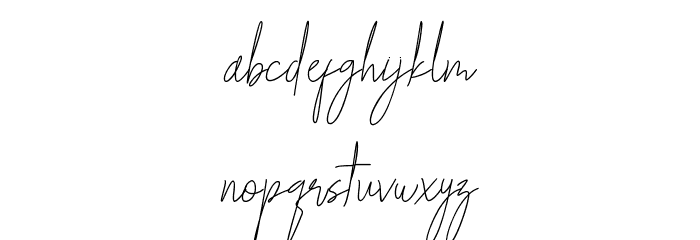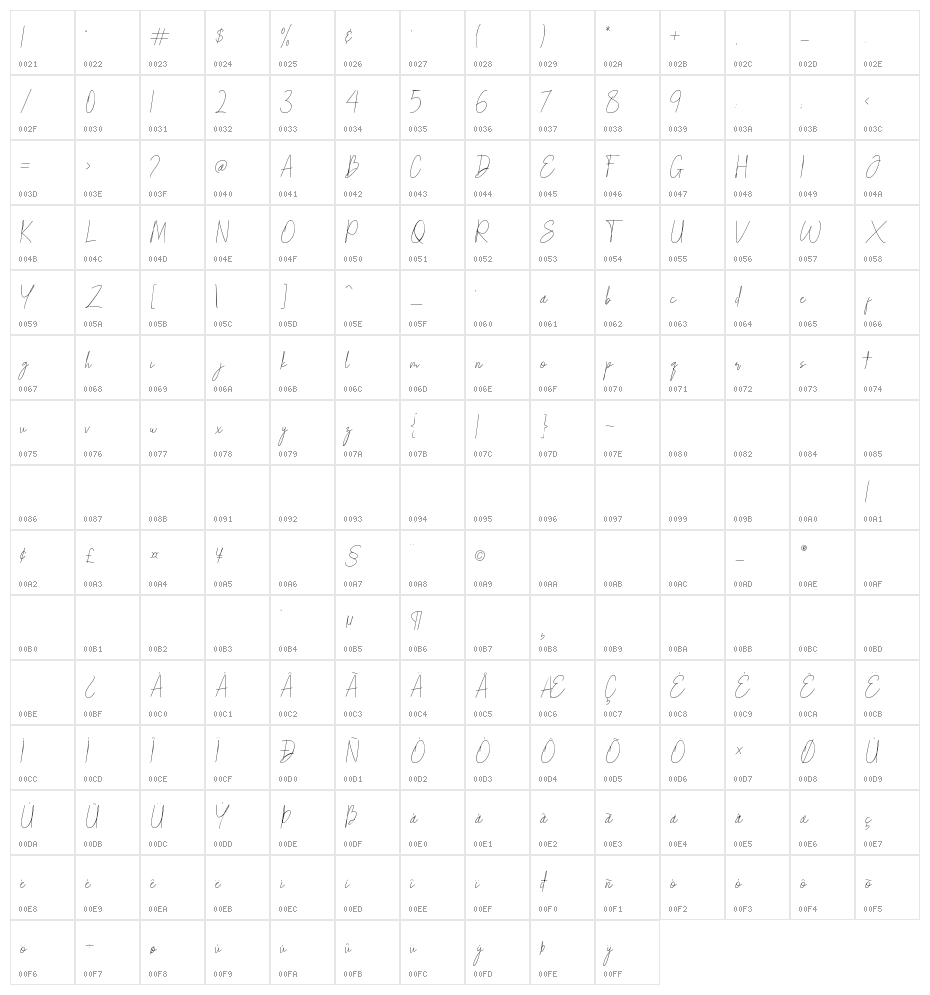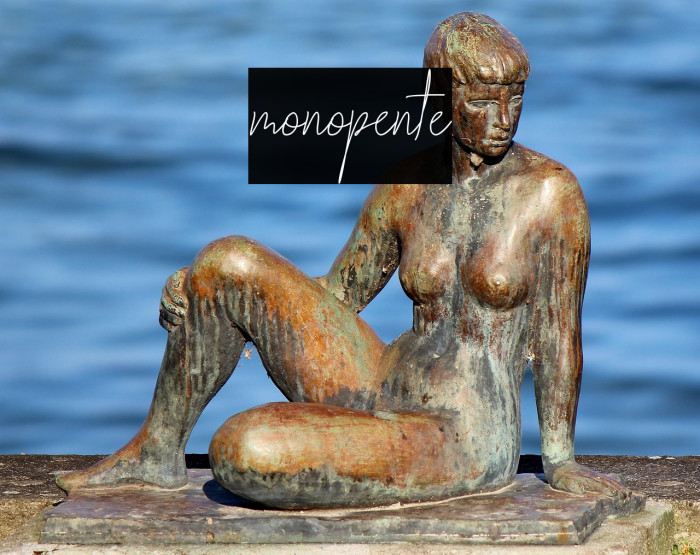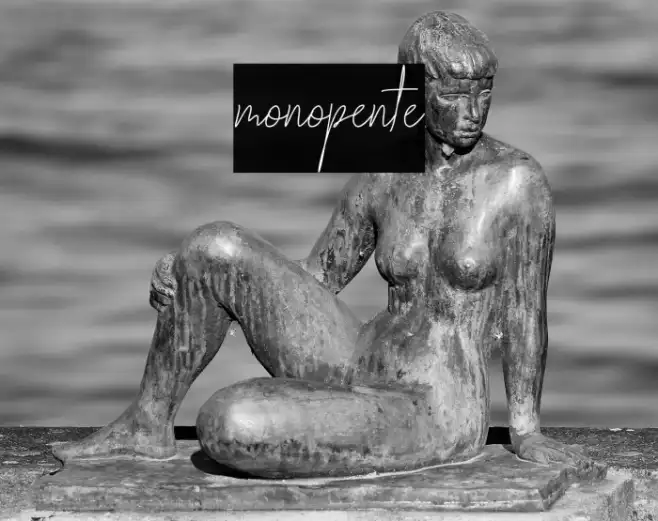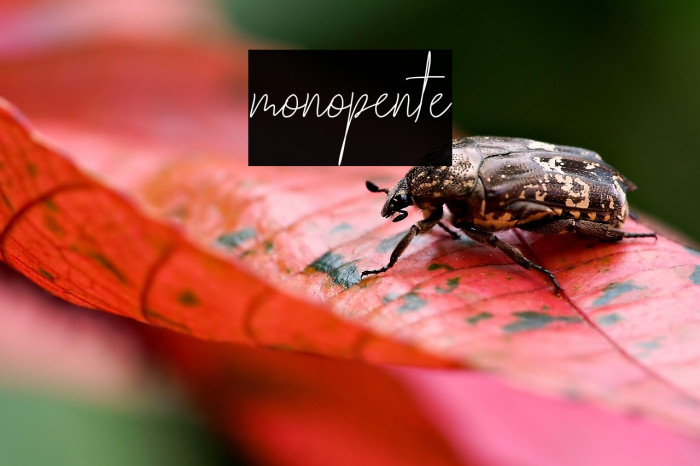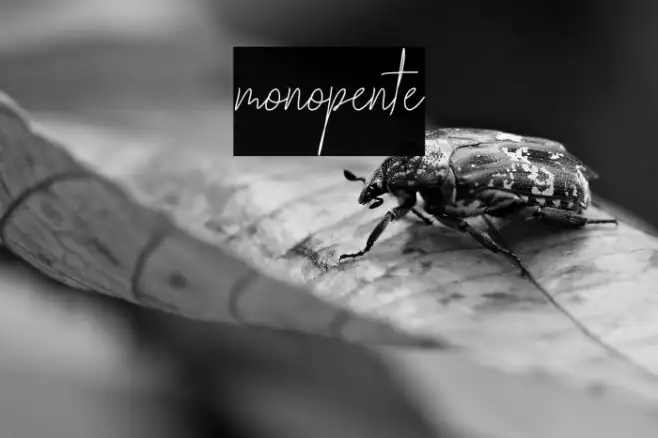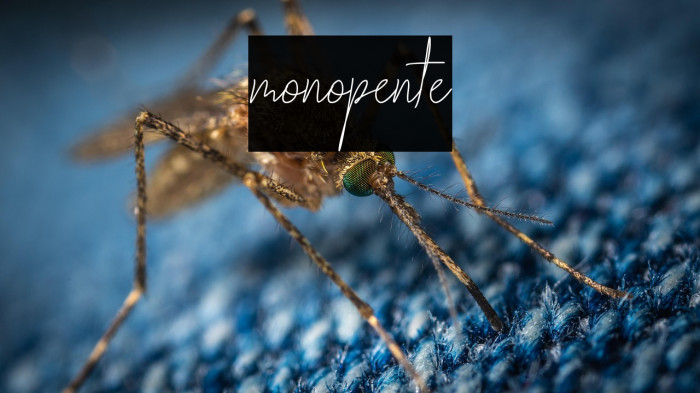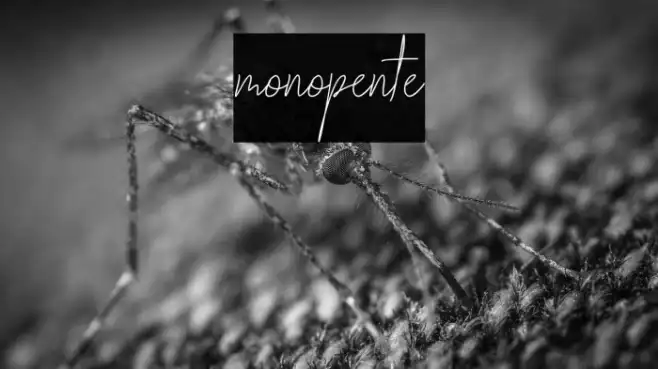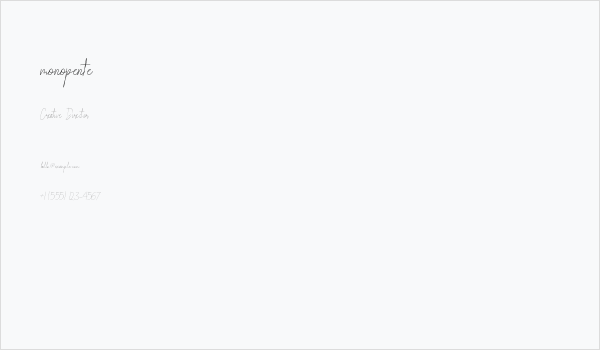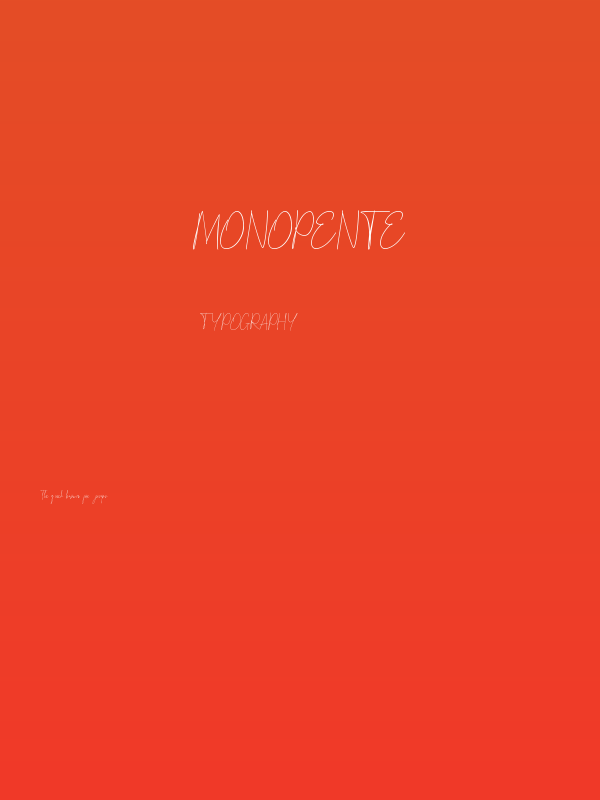
monopente Font
This font exudes a casual and artistic flair, characterized by its handwritten style that mimics the fluidity and spontaneity of natural handwriting. The letters are elongated and slightly slanted, giving an impression of movement and elegance. The strokes are thin and consistent, with a slight variation that adds to the organic feel. The uppercase letters are distinct and bold, while the lowercase letters maintain a cohesive flow, enhancing readability. Numbers and special characters are crafted with the same attention to detail, ensuring uniformity across the font. This font is perfect for projects that require a personal touch, such as invitations, greeting cards, or creative branding.
A casual, handwritten font with elongated, slanted letters and thin strokes.
- Proposed Projects: Ideal for invitations, greeting cards, creative branding, and personal projects.
- Overall Style: Casual
- Use Case: Headlines, Logos, Personal projects